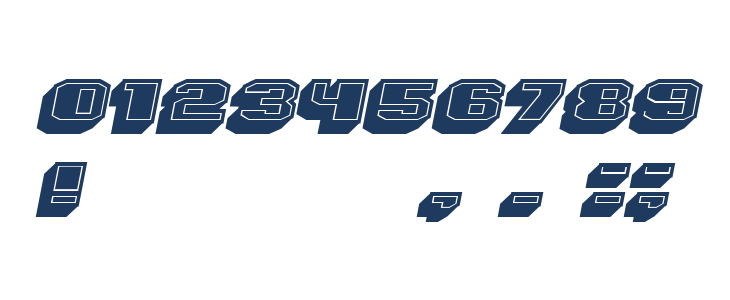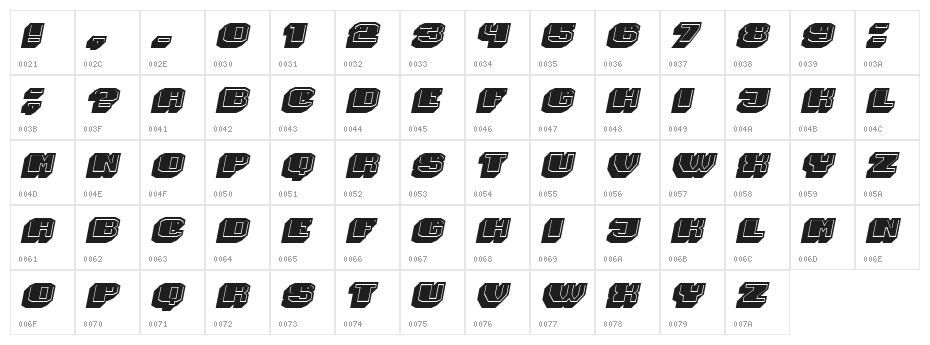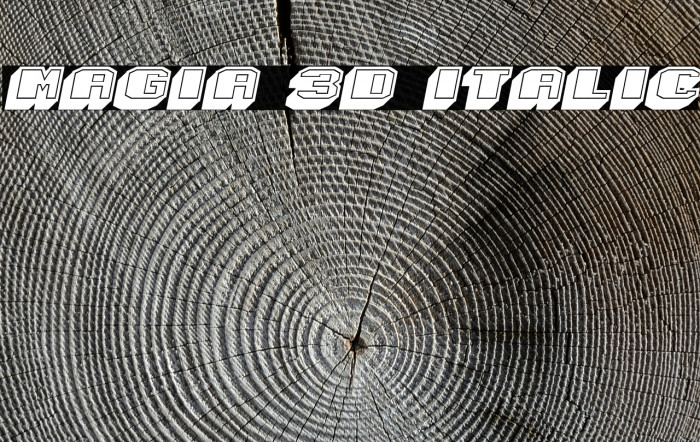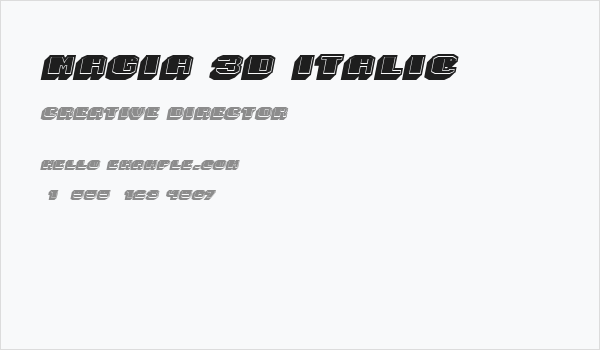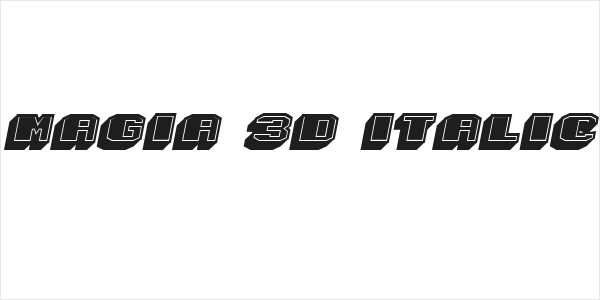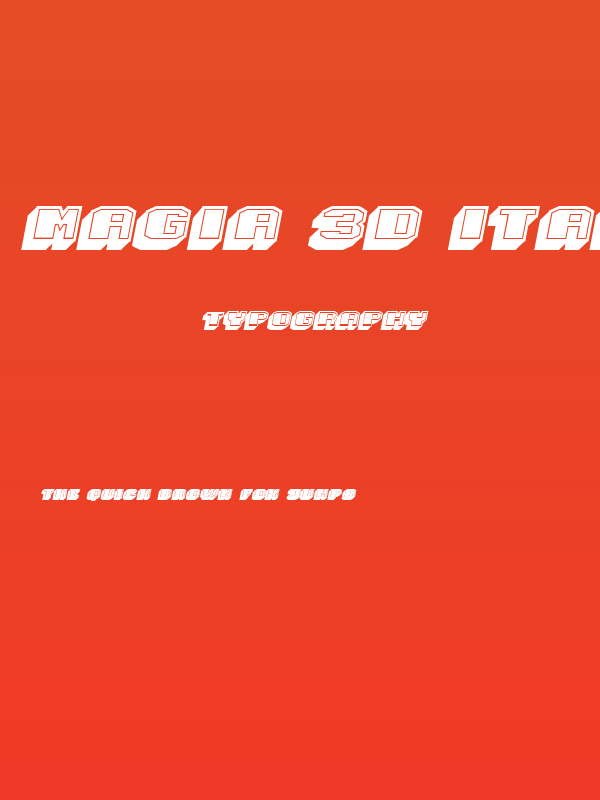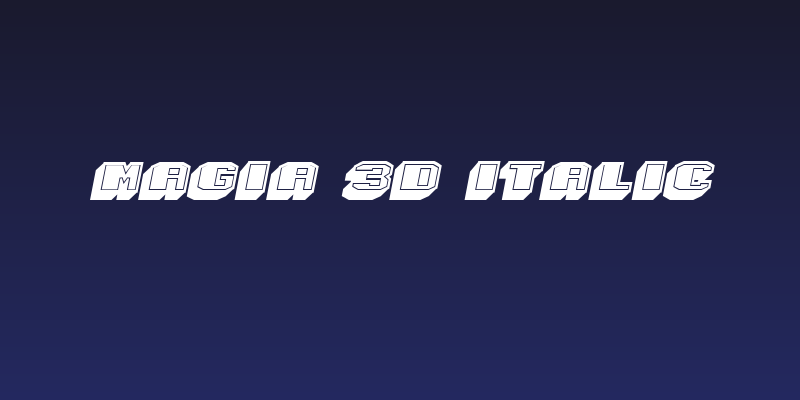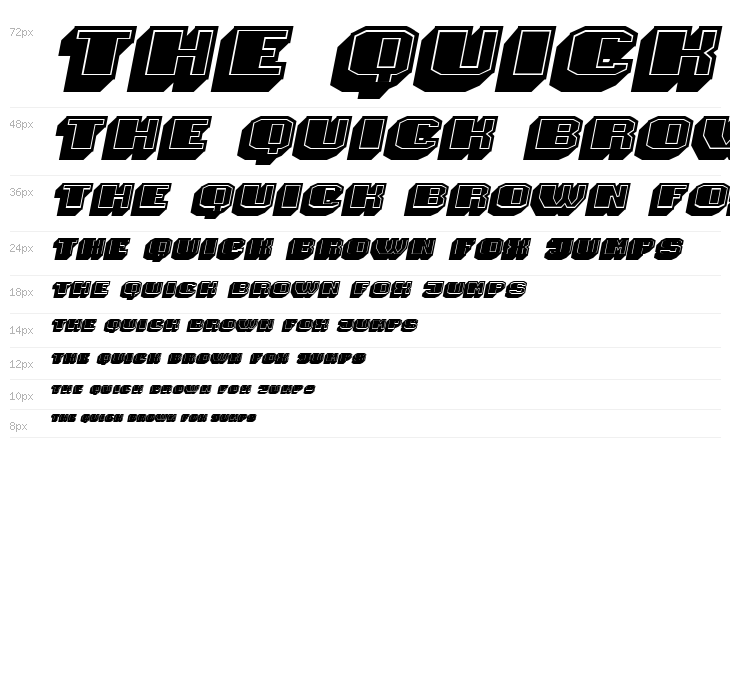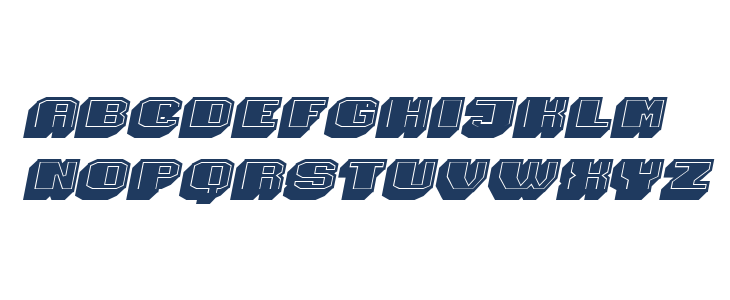
Magia 3D Italic Font
This font features a bold, three-dimensional design with a strong italic slant, giving it a dynamic and futuristic appearance. The characters are blocky and robust, with thick strokes that create a sense of depth and shadow. The 3D effect is achieved through the use of shading and perspective, making each letter appear as though it is popping off the page. This style is consistent across uppercase and lowercase letters, numbers, and special characters, ensuring a cohesive look. The font's boldness and unique style make it stand out, ideal for projects that require a strong visual impact.
Overall StyleFuturistic, Decorative
Proposed ProjectsIdeal for video game titles, movie posters, sci-fi themed designs, and branding that requires a bold statement.